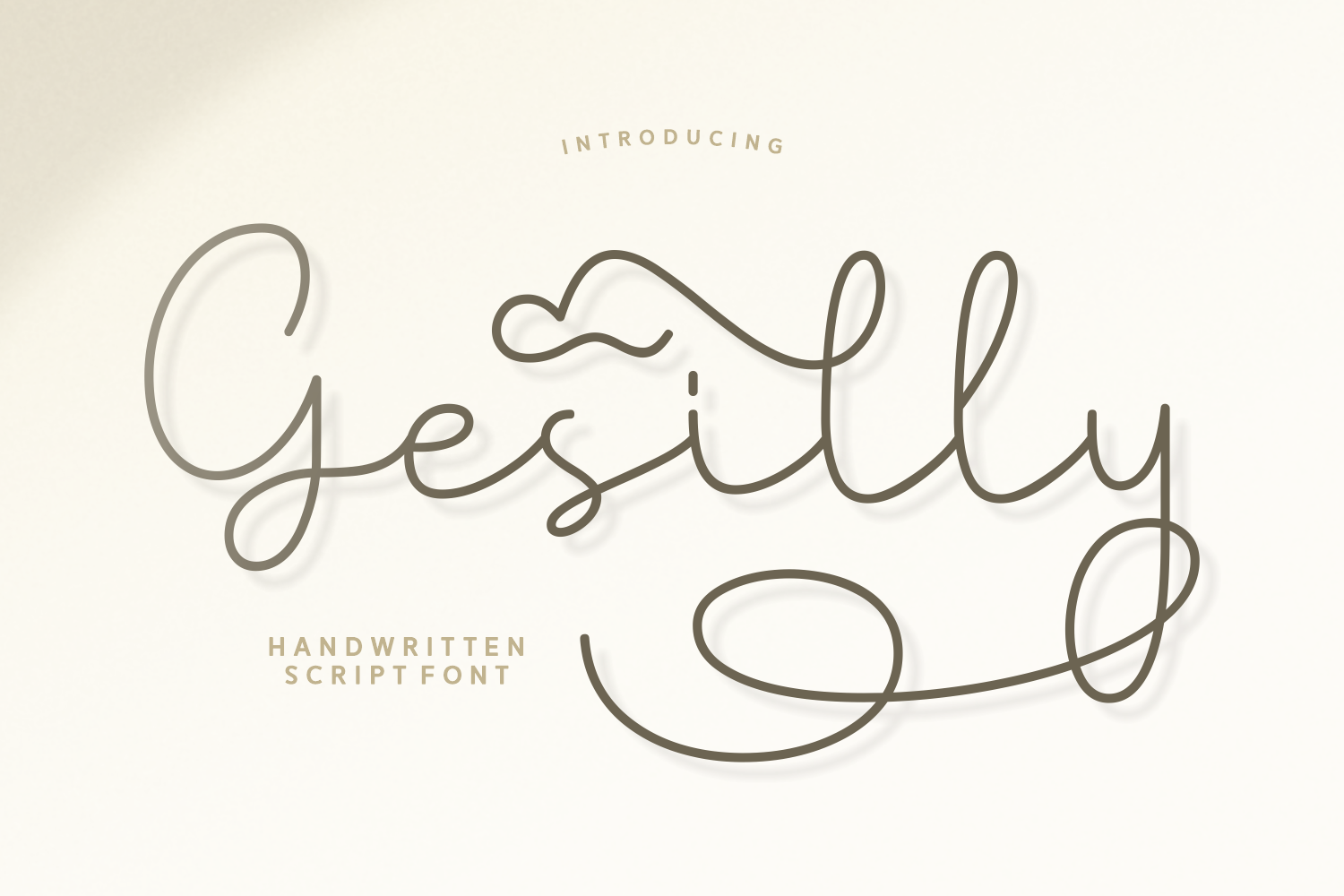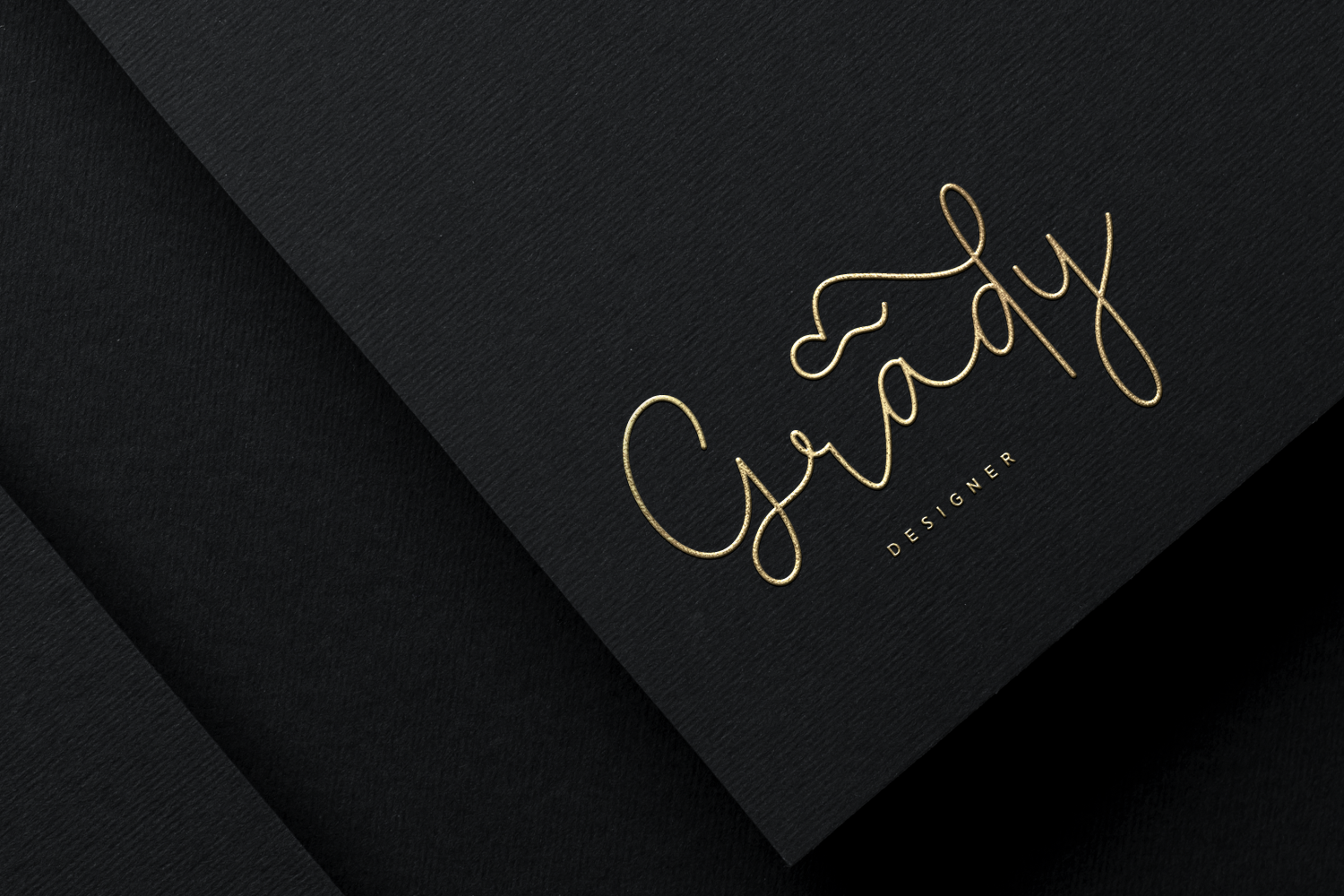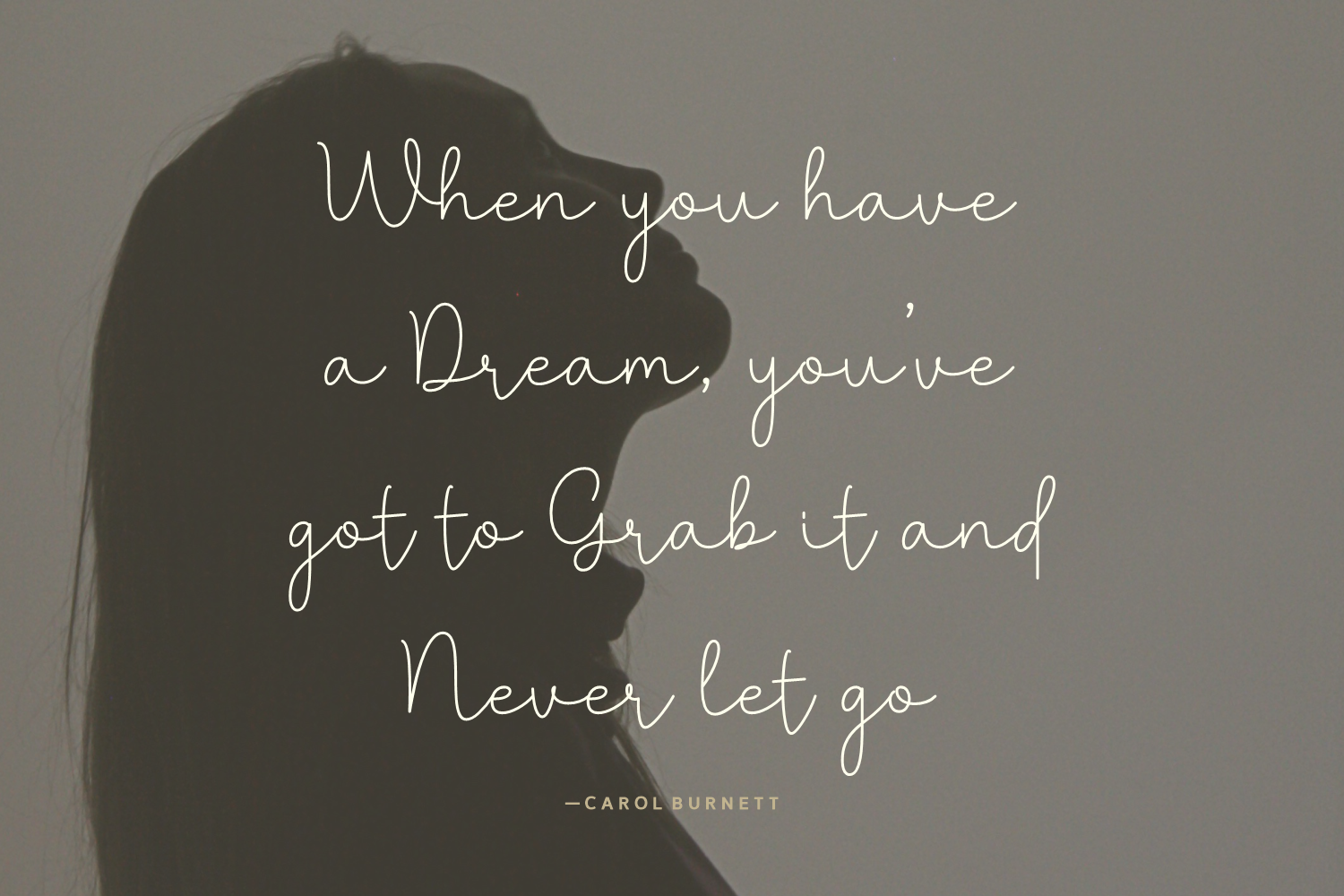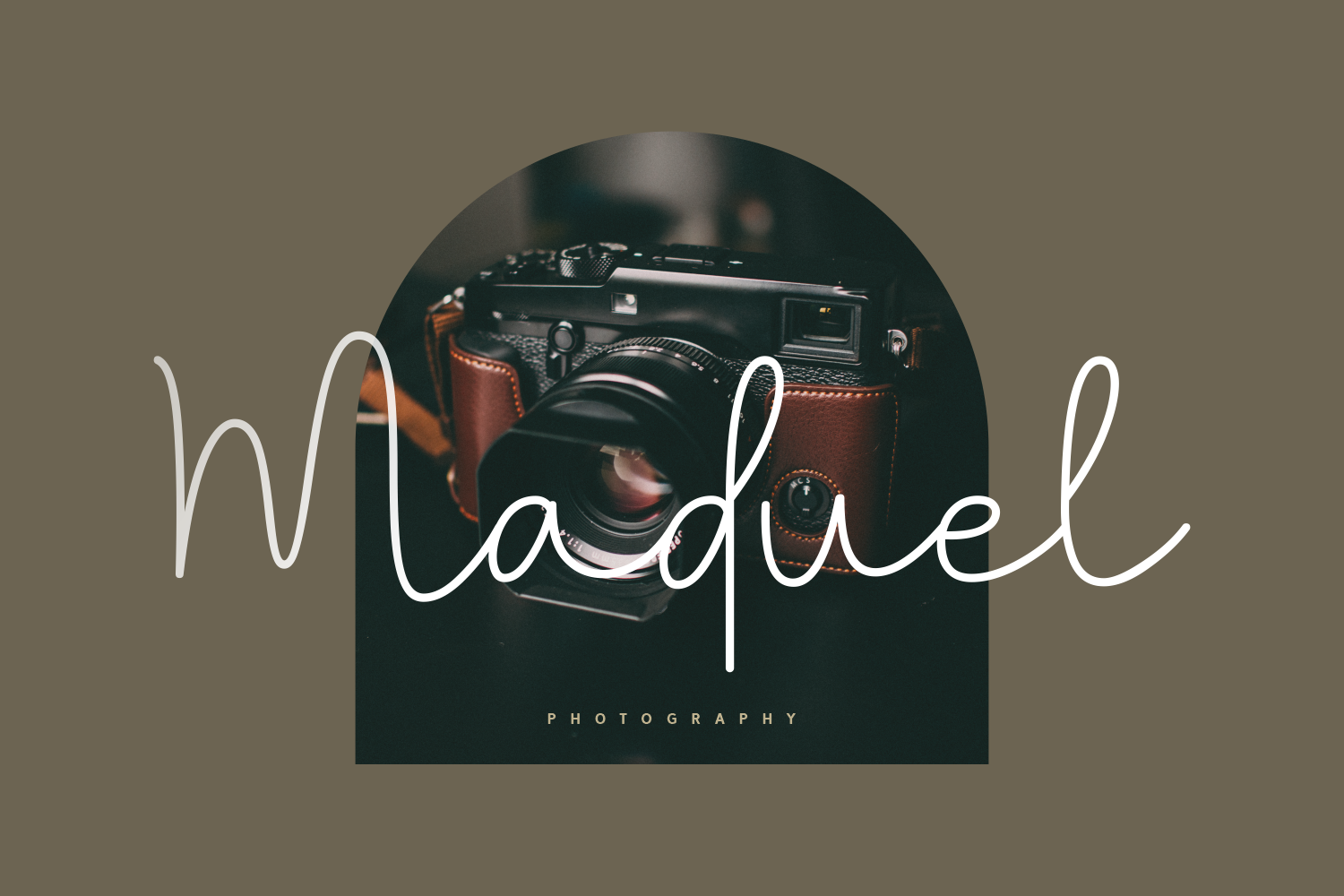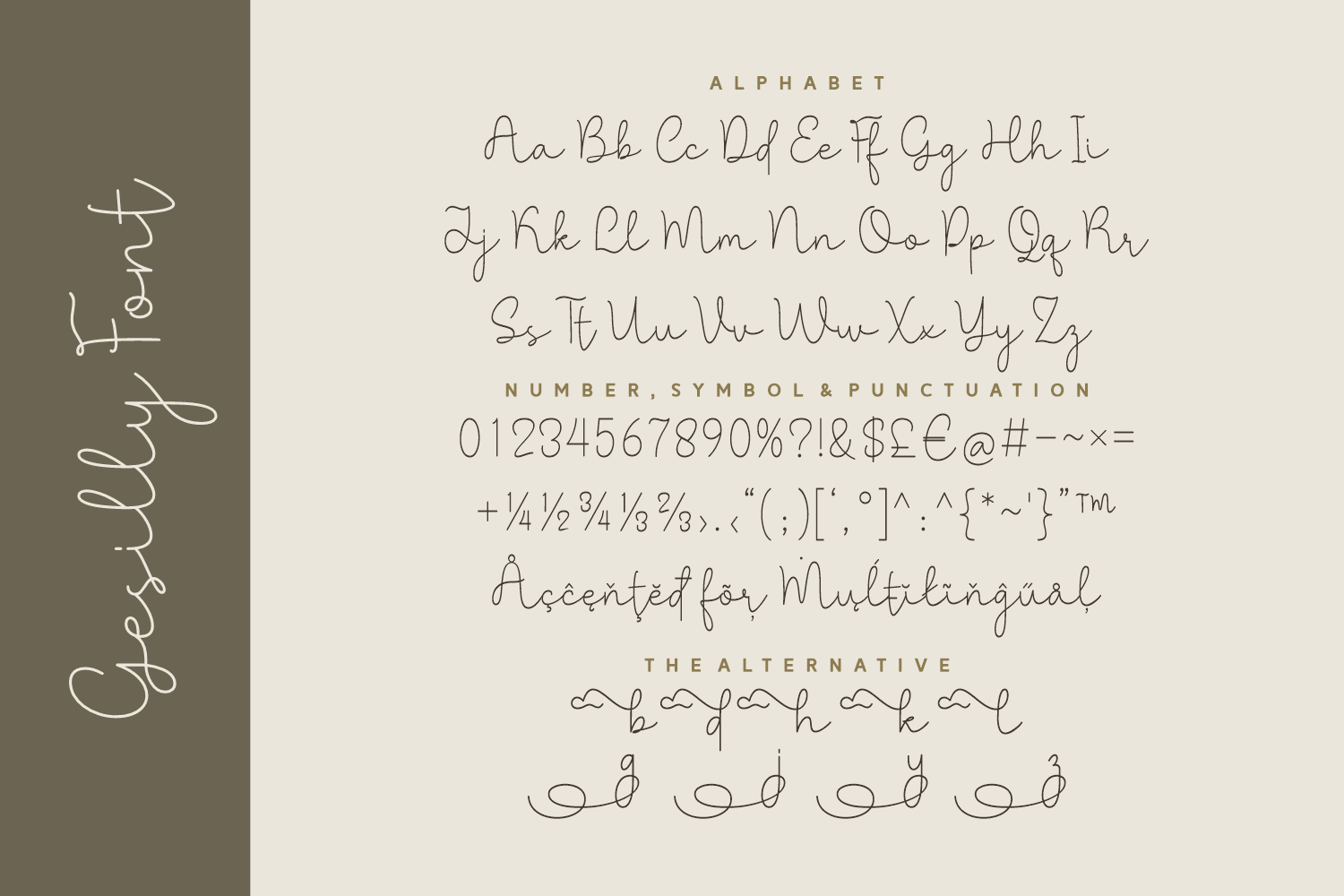
Gesilly is a delicate handwritten script font with a monoline style and charming swashes. Its flowing strokes and elegant letterforms bring a touch of sweetness and warmth to any design. Ideal for wedding stationery, beauty product packaging, branding, and lifestyle blog headers, Gesilly adds a soft, personal flair with a modern twist.